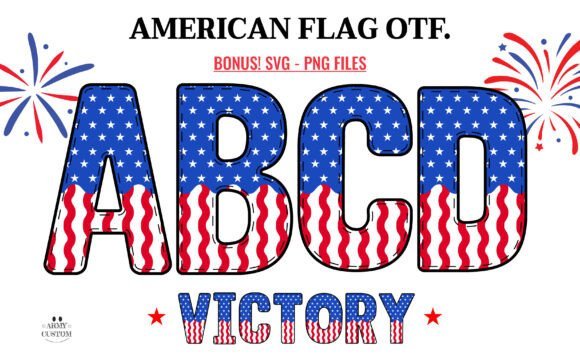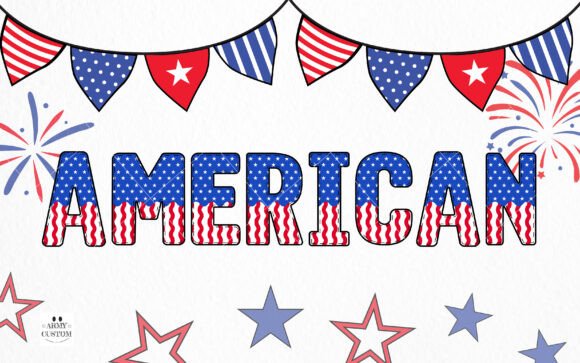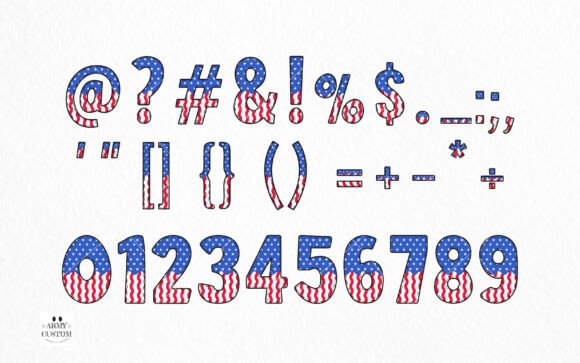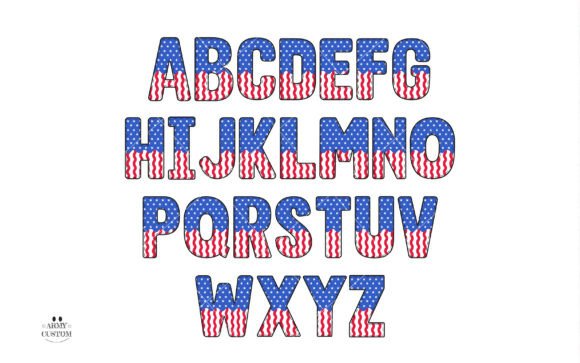
Waving the Flag of Creativity: Introducing the American Flag Font
As you sit at your desk, surrounded by sketches and screens, the question echoes in your mind: “How can I infuse my design with a sense of patriotism and national pride?” The answer lies in the American Flag Font, a unique and specially crafted typeface that embodies the essence of American spirit. This font is not just a digital representation of the American flag; it’s a tribute to the country’s values and history, carefully brought to life through typography.
For designers, the American Flag Font offers a valuable opportunity to express their creativity while paying homage to the Land of the Free. Its distinctive design and patriotic flair make it an ideal choice for projects that require a sense of national pride and identity. Whether you’re designing a patriotic poster, a Fourth of July logo, or a tribute to American history, the American Flag Font is sure to inspire your creativity and add a touch of American charm to your work.
American Flag Font Key Features
- Unique Characteristics: The American Flag Font features a stylized design that incorporates the colors and symbolism of the American flag, making it a unique and eye-catching choice for patriotic designs.
- Font Style: The font is a sans-serif font with a bold, modern feel, making it suitable for a variety of applications, including logos, signage, and promotional materials.
Designer Review: American Flag Font
When I first saw the American Flag Font, I was immediately drawn to its unique aesthetic ✨. The font’s bold and patriotic design is perfect for any project that requires a touch of American flair. The font’s versatility is impressive, and it can be used for a wide range of applications, from posters to branding materials.
- Customizable: The font allows for customization of the colors, which is a huge plus ✨. You can choose from a variety of color combinations to suit your project’s needs.
- Legibility: The font is easy to read, even at smaller font sizes ✨. This makes it a great choice for projects where clarity is crucial.
- Unique: The font’s design is truly unique and will help your project stand out from the crowd ✨.
However, there are a few limitations to consider ⚠️:
- Limited font sizes: While the font is legible at smaller sizes, it’s not ideal for large font sizes. The design can become distorted and lose its impact.
- Not suitable for all projects: The font’s bold design may not be suitable for all projects, such as those that require a more subtle or elegant look.
Overall, the American Flag Font is a great choice for projects that require a bold and patriotic design. While it has its limitations, the font’s versatility and customizability make it a valuable addition to any designer’s toolkit.
Use the American Flag Font to add a patriotic touch to your designs. It’s ideal for:
- Independence Day celebrations
- 4th of July events
- USA-themed merchandise
- Red, white, and blue color schemes